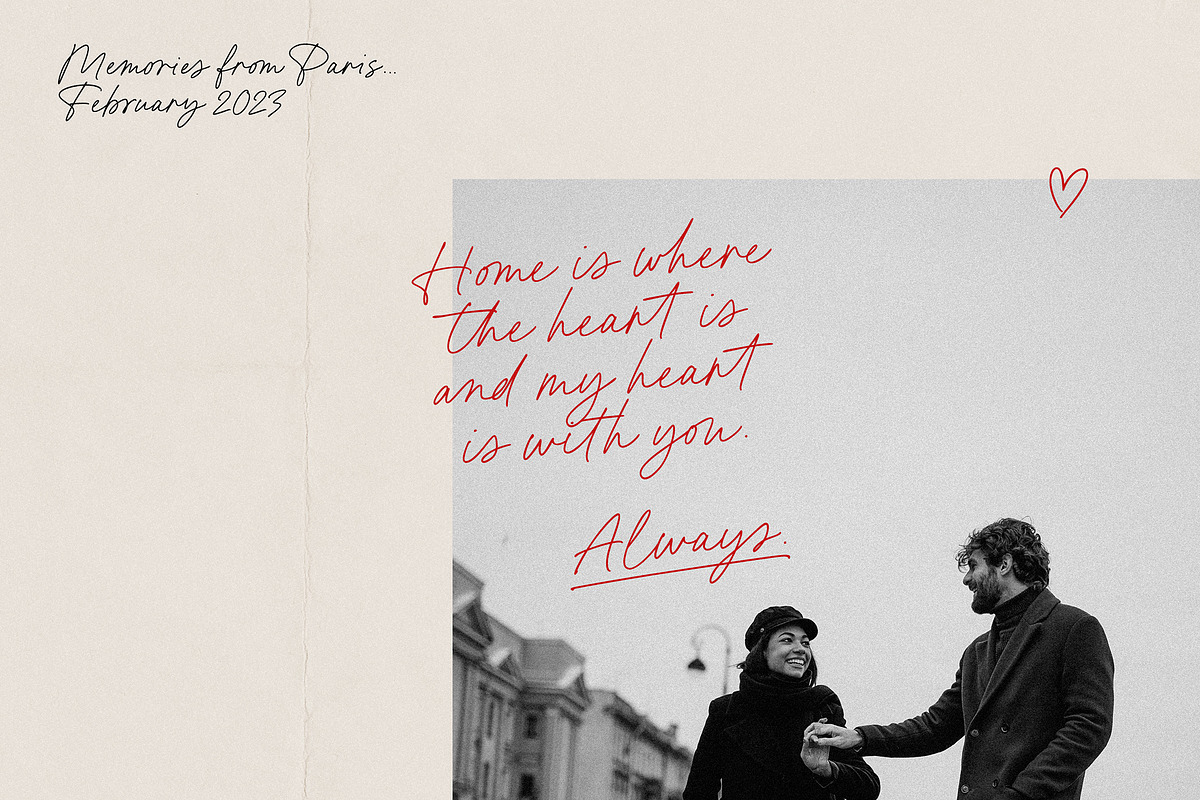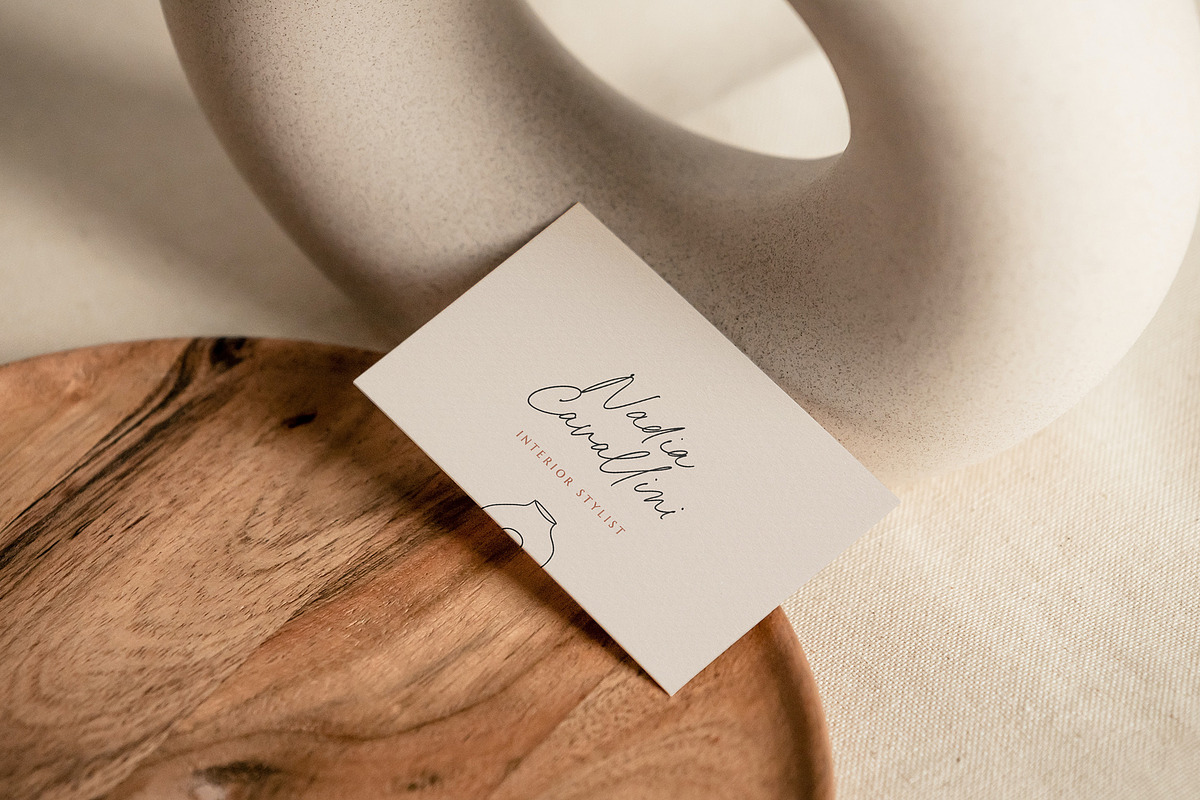
Miss Noteworthy Font
Miss Noteworthy is a handwritten font gone variable! This beautiful signature script is ideal for adding a luxurious, yet organic handmade touch into your visuals – be it your logo, product packaging or social media.
Carefully crafted with 145 ligatures to ensure the natural & varied look of real handwriting, as well as a few extra characters for some added fun.
Miss Noteworthy Handwritten Font